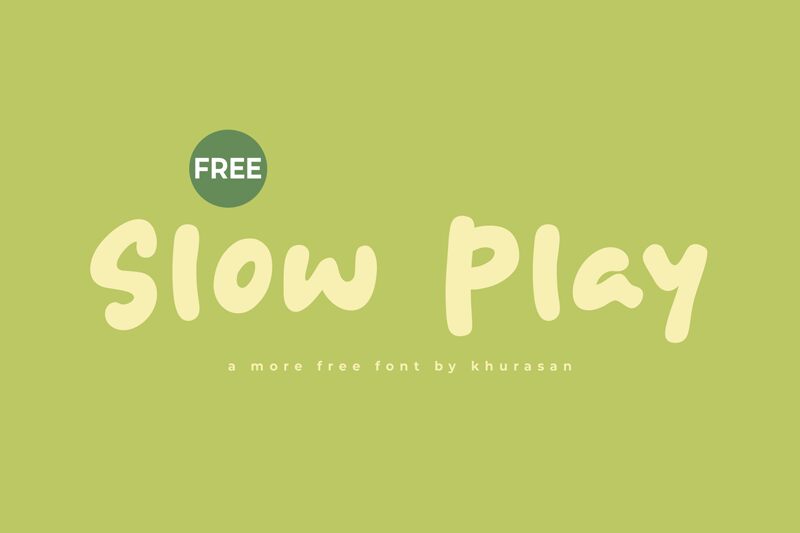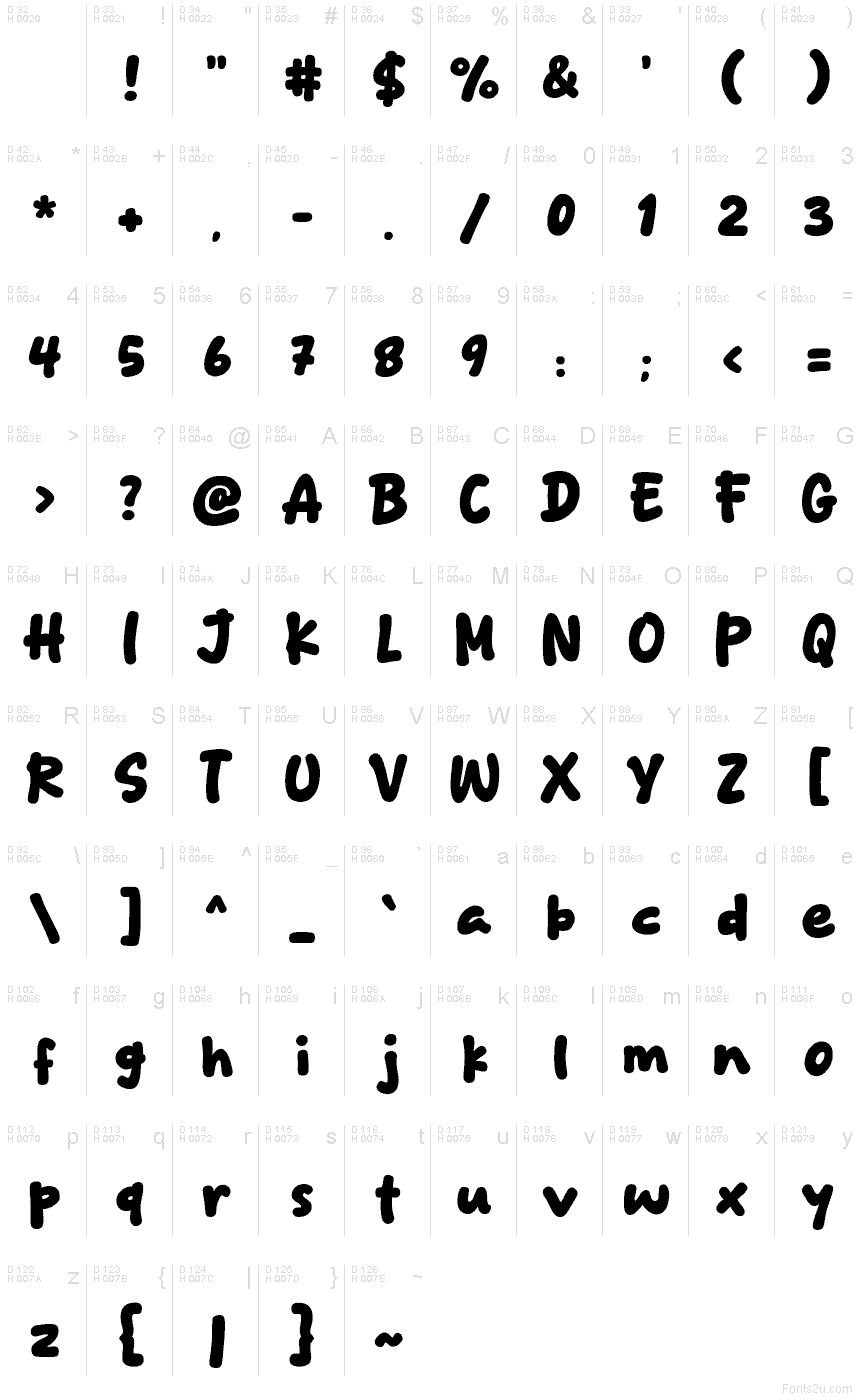
Slow Play
Slow Play font by Khurasan is a free cartoon display typeface that feels like it’s been brushed onto the page with inky, slightly wobbly strokes. The chunky, rounded letters have a loose, handwritten bounce that instantly softens any layout and adds a friendly, approachable tone. It reads clearly even at larger sizes, so you can push the scale and let the bold, inky shapes do the talking.
Using Slow Play, this free font shines on kids’ book covers, birthday invitations, classroom posters, playful logos, stickers, and YouTube thumbnails. The relaxed rhythm and gently uneven shapes give headlines a casual confidence that’s fun without being chaotic. For longer text or captions, pair Slow Play with a simple sans serif in a lighter weight to keep the focus on its big, cartoon-style titles.